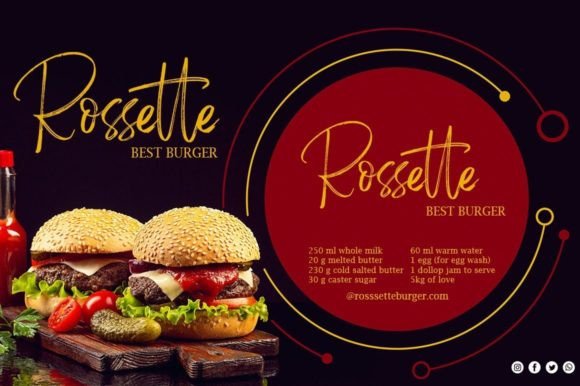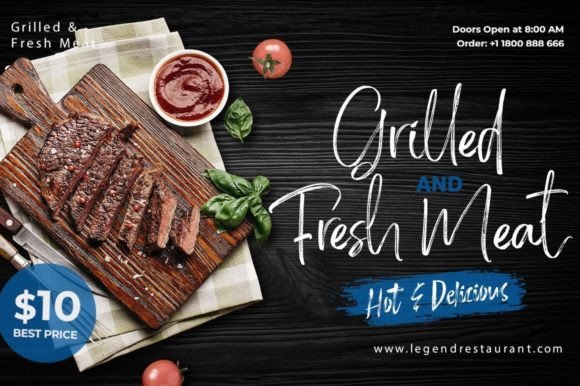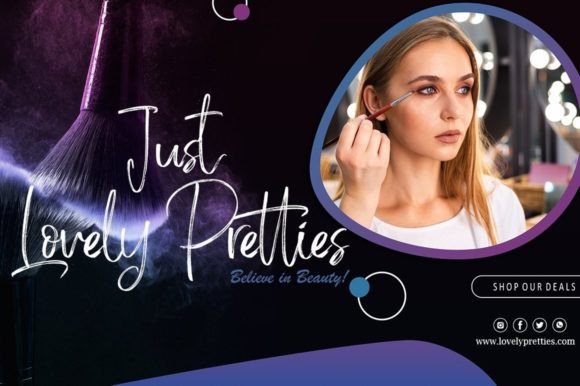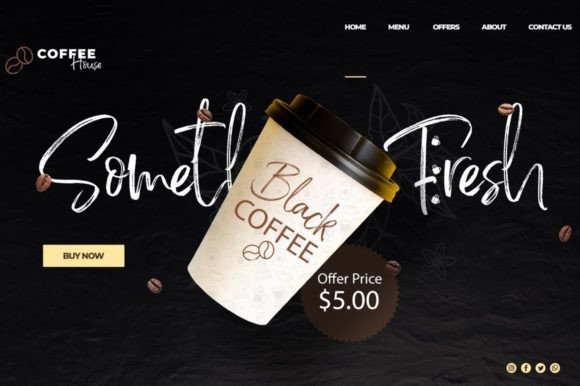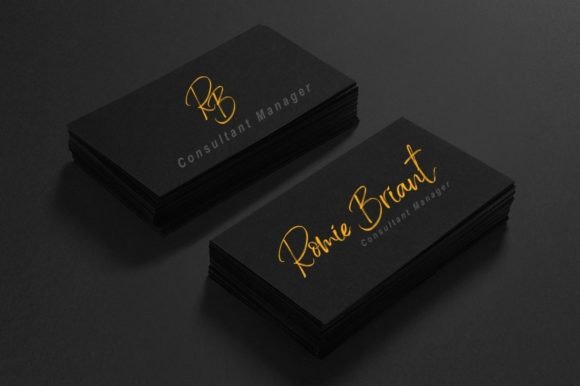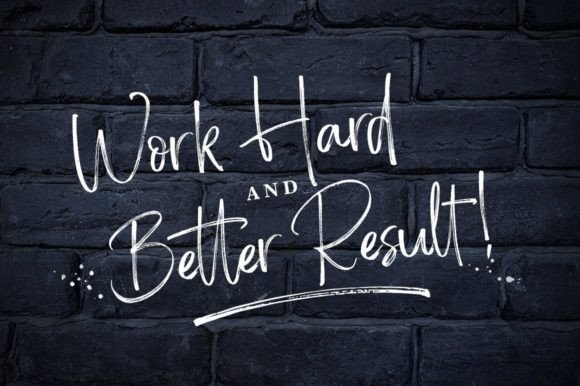
Introduction to Smoltimes Font
Do you remember that moment when you’re working on a creative project and you just can’t seem to find the right font to bring it all together? You’ve got the perfect design in mind, but something’s missing – a certain je ne sais quoi that will take it from good to great. That’s where Smoltimes Font comes in.
This modern brush script font with irregular baselines is a game-changer for designers looking to add a touch of sophistication and elegance to their work. With its handcrafted nature and high-quality design, Smoltimes Font is the perfect addition to any design resource. Whether you’re working on a branding project, designing a logo, or creating a beautiful invitation, this font is sure to elevate your work to the next level.
Key Features of Smoltimes Font
- High-quality, modern design for various creative projects and design resources.
- Smoltimes Font offers a transparent background, making it ideal for use on various backgrounds.
- Supports a wide range of languages, including Latin, Cyrillic, and Greek scripts.
- Available in 5 font sizes, ranging from 200 to 1000 points, to suit various design needs.
- Designed with a high resolution of 300 DPI, ensuring crisp and clear typography.
- Perfect for use in logos, branding materials, and other creative projects where a modern, sleek font is required.
Honest Review: Smoltimes Font
As a designer, I’m always on the lookout for high-quality design resources to elevate my creative projects. Recently, I came across the Smoltimes Font, and I’m excited to share my honest review with you.
- ✨ The Smoltimes Font is incredibly versatile, making it perfect for a wide range of creative projects, from logos to brochures.
- ✨ The high-quality design ensures that the font looks great on various backgrounds, including transparent backgrounds.
- ⚠️ The font is only available in a limited number of styles, which might not be suitable for projects that require a lot of customization.
- ⚠️ The font’s legibility could be improved in certain font sizes, so it’s essential to test it thoroughly before using it in a design.
Overall, I’m impressed with the Smoltimes Font, and I would recommend it to designers looking for a high-quality, free design resource. While it has some limitations, it’s still a great addition to any design library.
The Smoltimes Font is ideal for use in creative projects, such as logo designs, infographics, and social media graphics. Its high-quality design and transparent background make it a great choice for use in digital design projects.